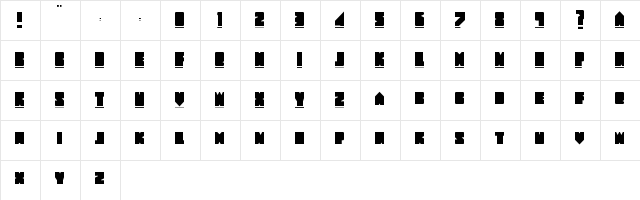
New wave 2009 Regular
| Designer | reye |
Design Context for New wave 2009 Typeface
New wave 2009 is a composed and adaptable typeface that performs quietly and consistently across a wide range of design contexts.